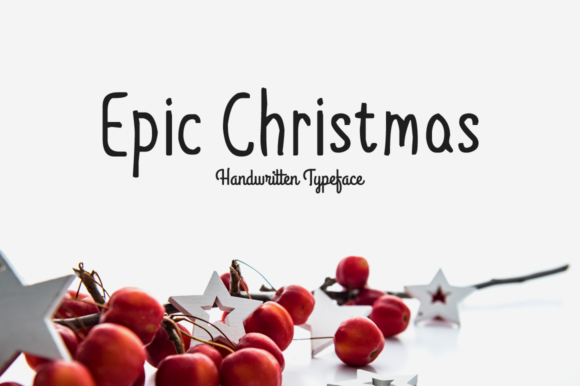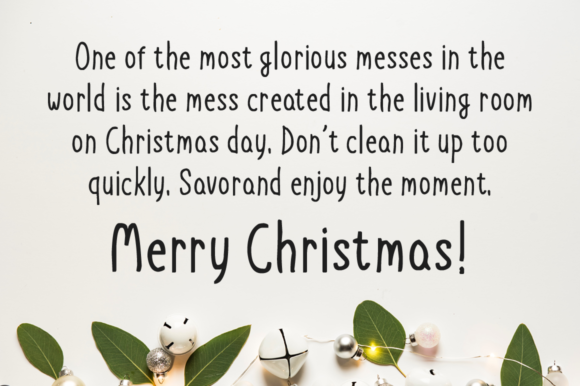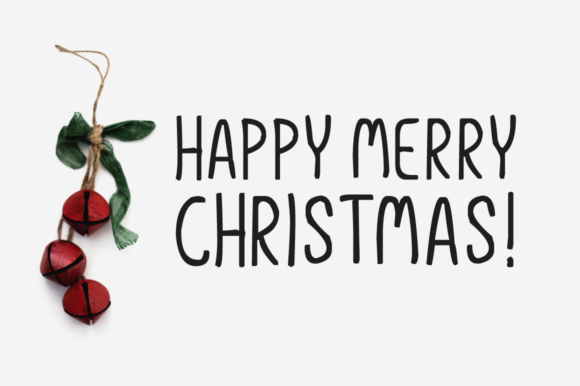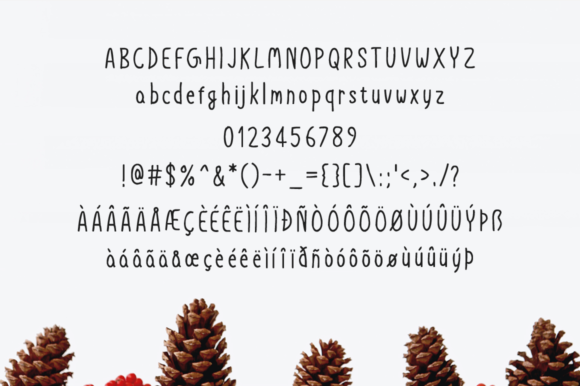
Epic Christmas Font
About Epic Christmas Font
Epic Christmas is a charming and beautiful handwritten font with a unique style. Get inspired by its Holiday charm!